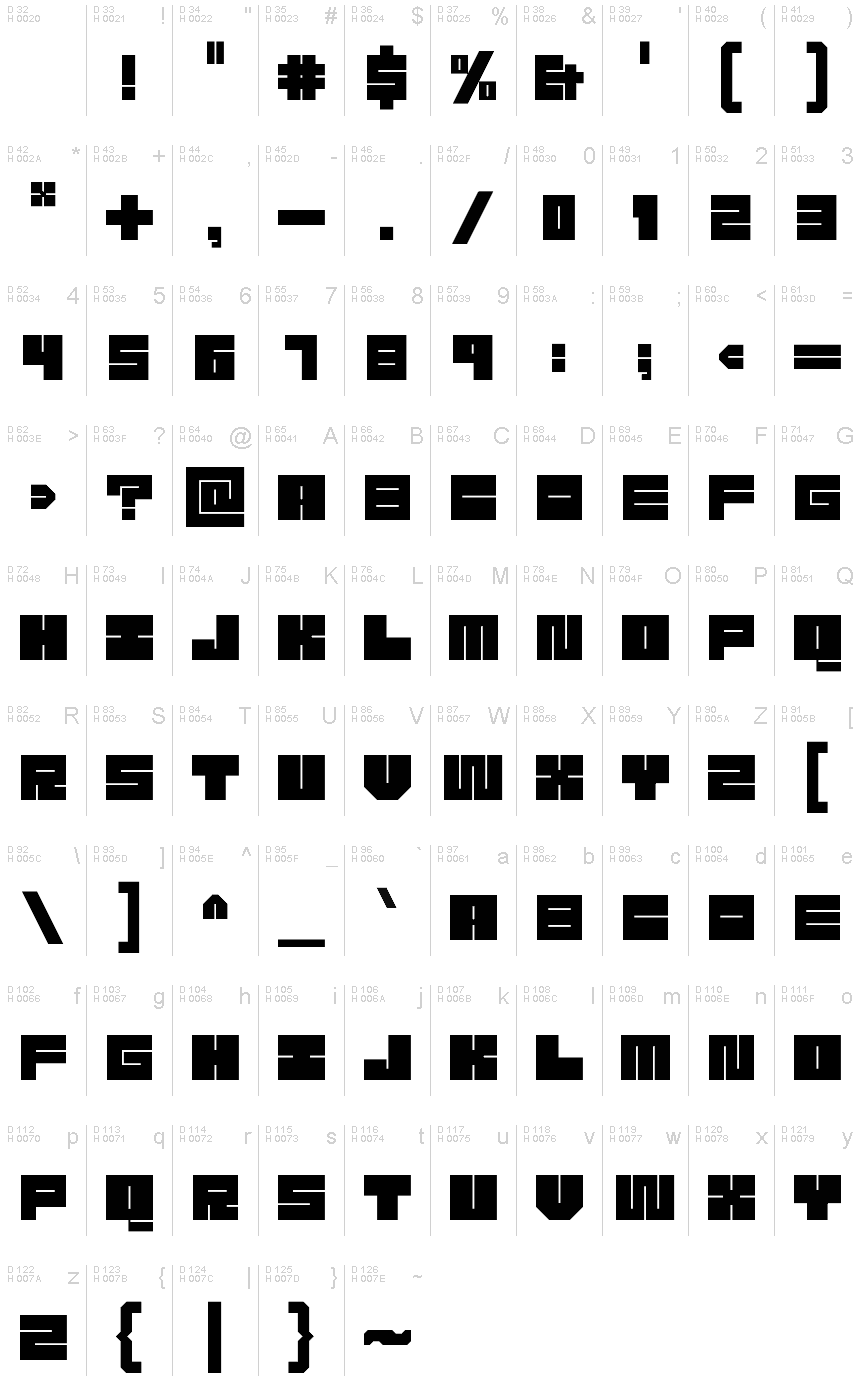
Meek Regular
Meek is a bold, expanded display font that exudes a captivating techno aesthetic. Crafted by designer nirmalbiswas, this font's striking geometric forms and sharp edges convey a sense of modern sophistication.
The expanded width adds a dynamic, commanding presence, making Meek well-suited for impactful titling, branding, and digital interfaces. Its distinct visual identity lends itself to a variety of design applications, from sleek product packaging to attention-grabbing digital advertisements.
The bold, futuristic character of Meek makes it a versatile choice for designers seeking to infuse their projects with a bold, cutting-edge aesthetic.